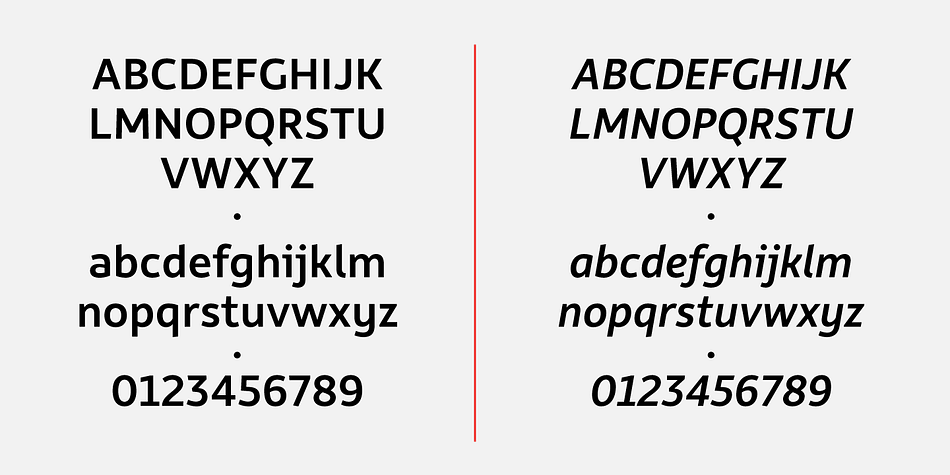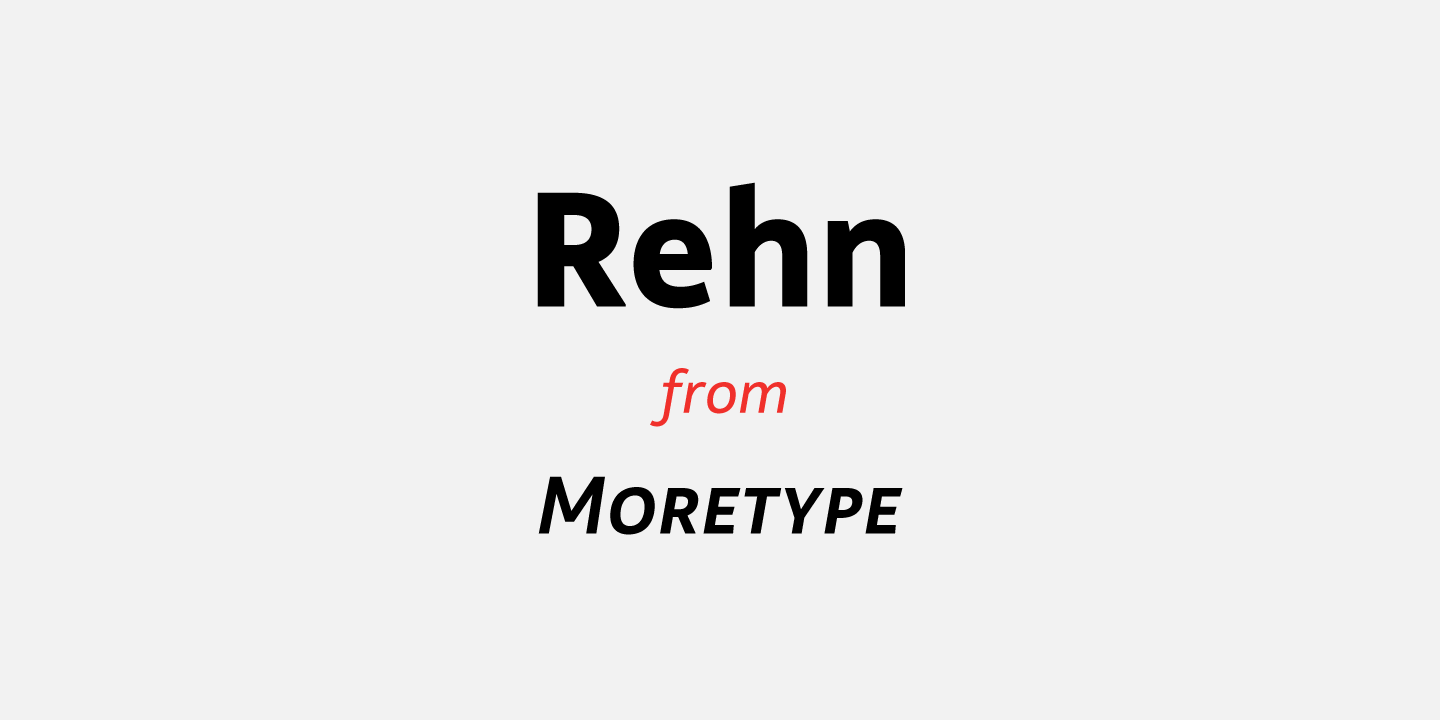
Rehn
Rehn is a sans serif font family. This typeface has twelve styles and was published by Moretype.
Rehn is a confident, modern, open sans with a finely tuned range of weights from thin to extra bold.
This cool, dependable hardworking font comes with small caps, ligatures, automatic fractions, proportional/tabular lining and old style figures, numerators, denominators, superiors and inferiors, case sensitive forms and alternative glyphs and will provide the complete toolkit for all your typographic needs.